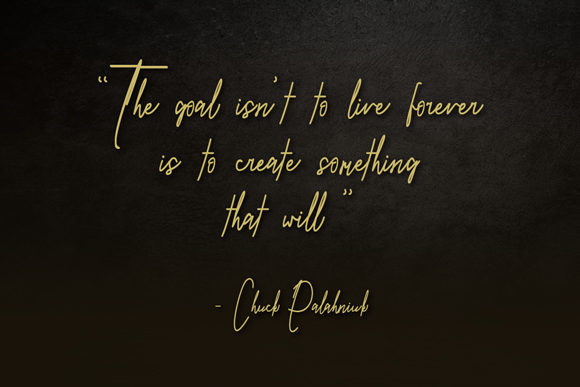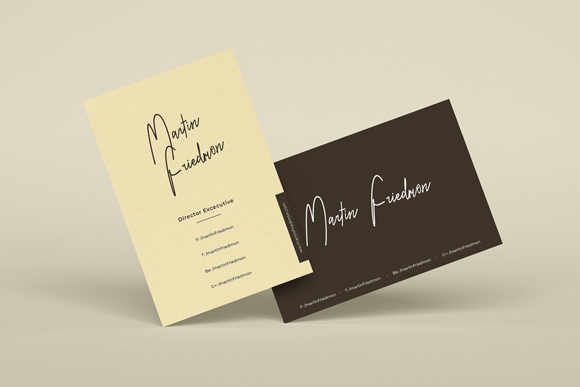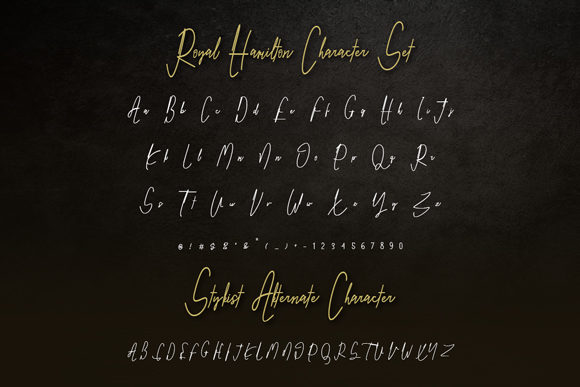
Introduction to Royal Hamilton Font
As designers, we’ve all been there – staring at a blank canvas, desperate for that one font that will elevate our creative project from ordinary to extraordinary. For those who crave a touch of elegance and sophistication, the Royal Hamilton Font is the perfect answer. This unique and captivating handwritten font is a game-changer for designers seeking to add a personal touch to their designs.
With its high-quality design and versatility, the Royal Hamilton Font is an invaluable resource for designers working on projects such as wedding invitations, thank you cards, and logos. Its beautiful, cursive script makes it perfect for adding a touch of whimsy and romance to any design. Plus, with a transparent background, you can easily integrate it into your design without any hassle.
Key Features of Royal Hamilton Font
- High-quality design resource ideal for creative projects, with a sophisticated and elegant aesthetic.
- Designed to be highly legible, with clear and crisp typography that’s perfect for headings, titles, and body text.
Honest Review: Royal Hamilton Font
I recently came across the Royal Hamilton Font, and I’m excited to share my thoughts on this creative design resource. As a designer, I’m always on the lookout for high-quality fonts to elevate my projects, and this one definitely delivers.
- ✨ Elegant and sophisticated feel, perfect for luxury branding and high-end designs
However, I do have a few concerns:
- ⚠️ Limited character set, which may not be suitable for longer text-based projects
- ⚠️ Not as versatile as some other fonts, may not work well in smaller text sizes
Overall, I’m impressed with the Royal Hamilton Font. It’s a great addition to any designer’s toolkit, and I’d definitely recommend it for creative projects that require a touch of elegance and sophistication. While it may have some limitations, it’s a high-quality design resource that’s definitely worth exploring.
The Royal Hamilton Font is a versatile design resource that can be used in a variety of applications, including:
- Menu design and restaurant branding
- Magazine and newspaper headlines
Alternatives to Royal Hamilton Font
The Great Vibes Font is a beautiful, high-quality script font that’s perfect for creative projects. It has a transparent background, making it ideal for use on a variety of design resources. Great Vibes Font is a great alternative to Royal Hamilton Font when you need a more elegant and sophisticated look.
Compared to Royal Hamilton Font, Great Vibes Font has a more refined and luxurious feel. It’s ideal for use in wedding invitations, certificates, and other high-end design projects.